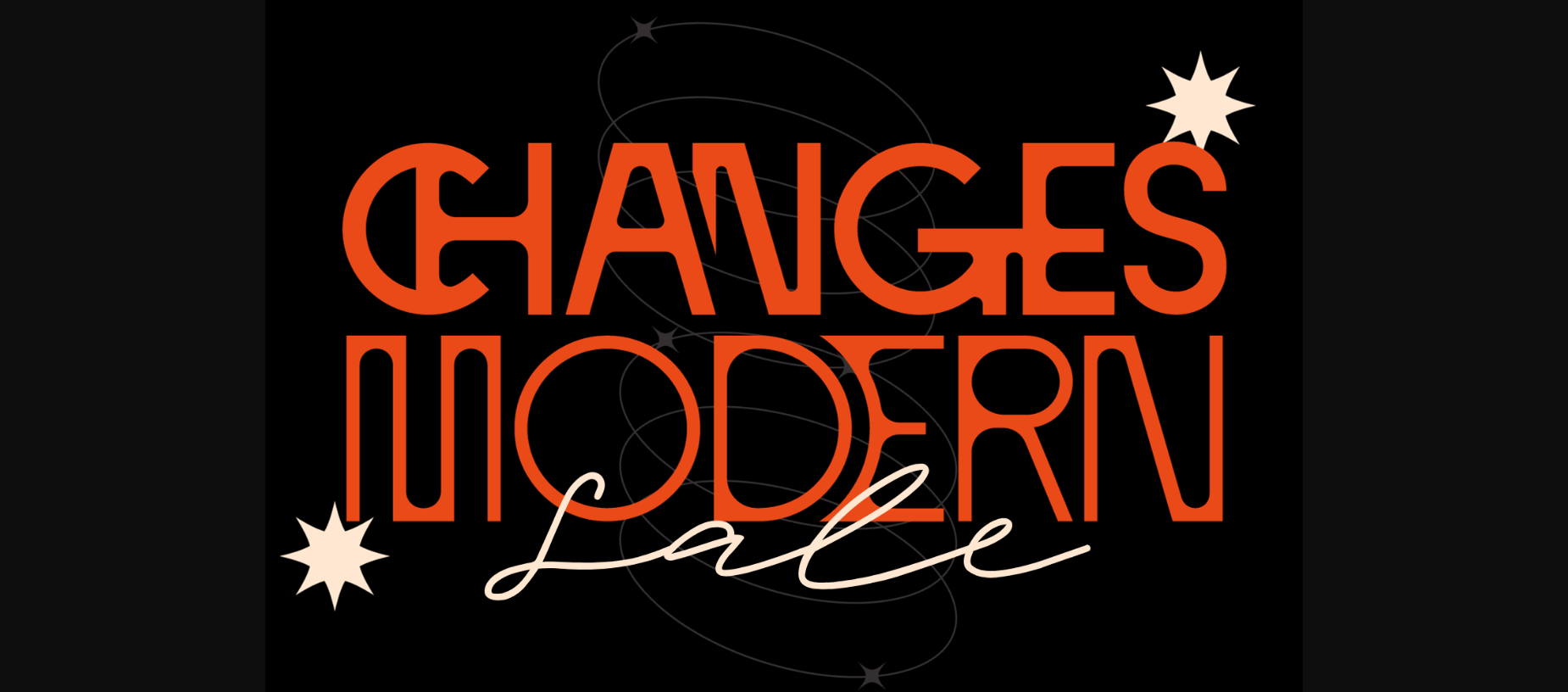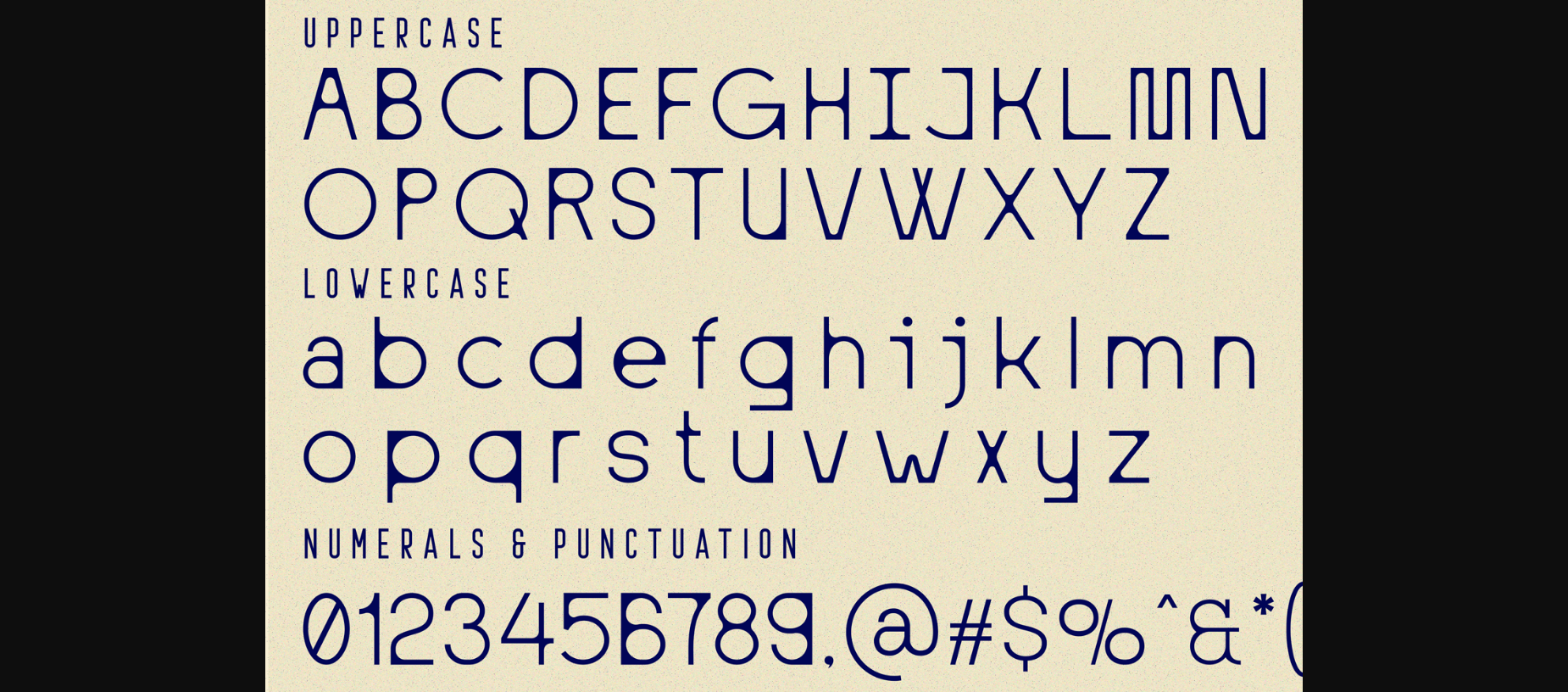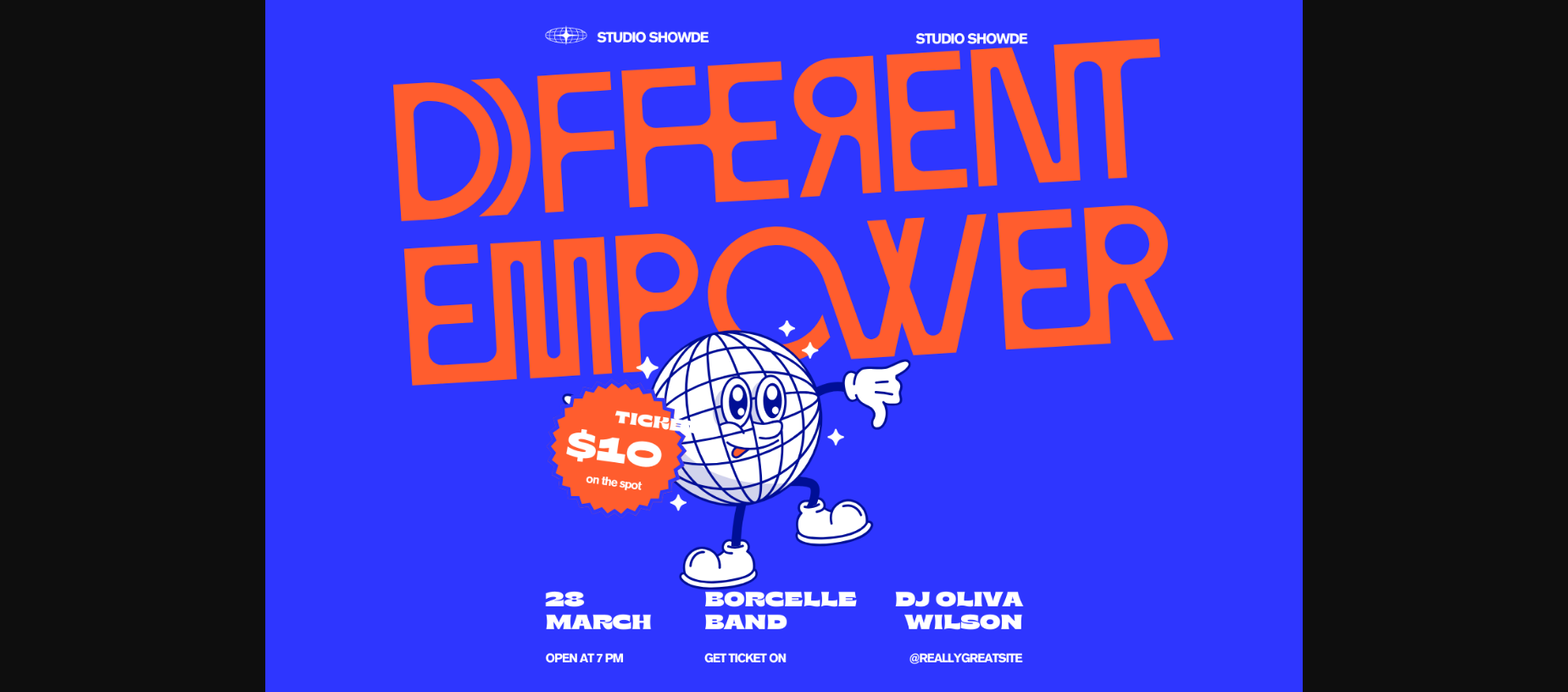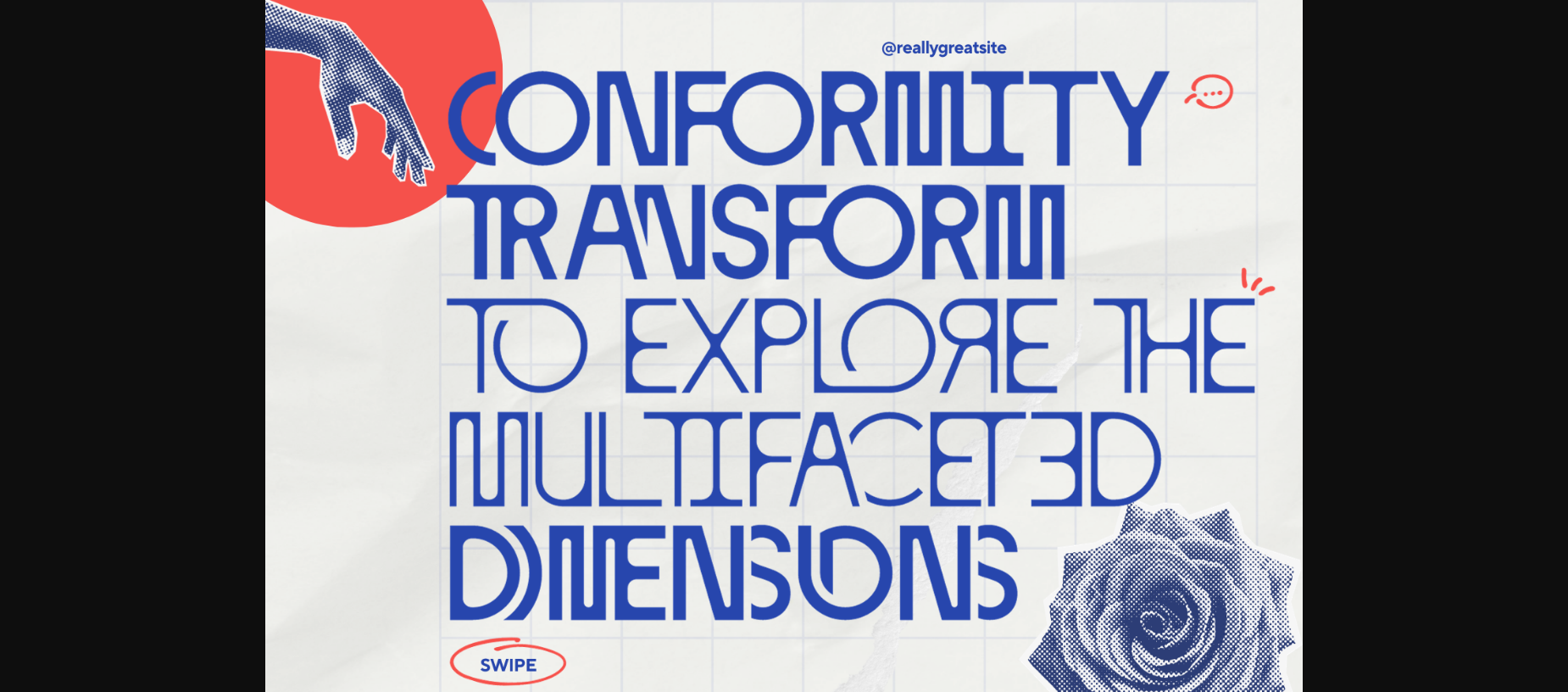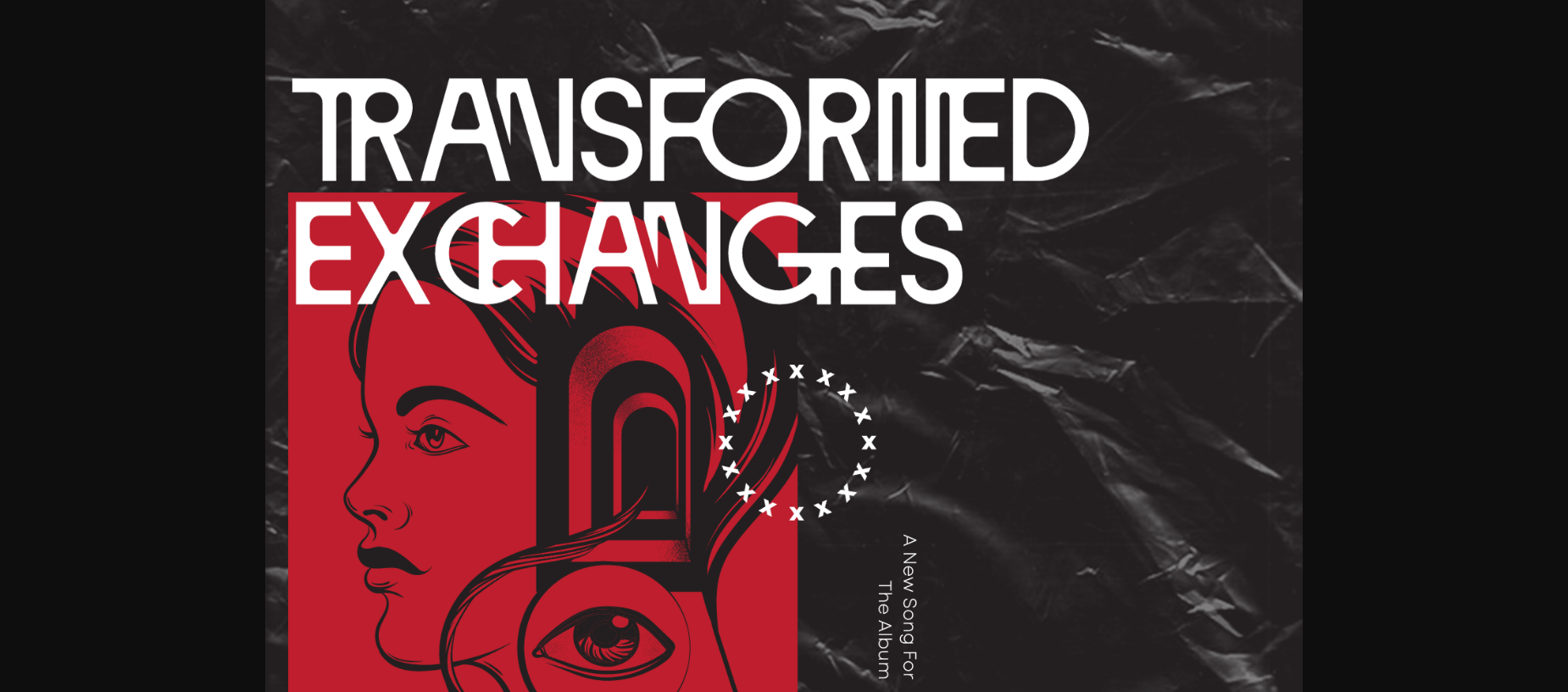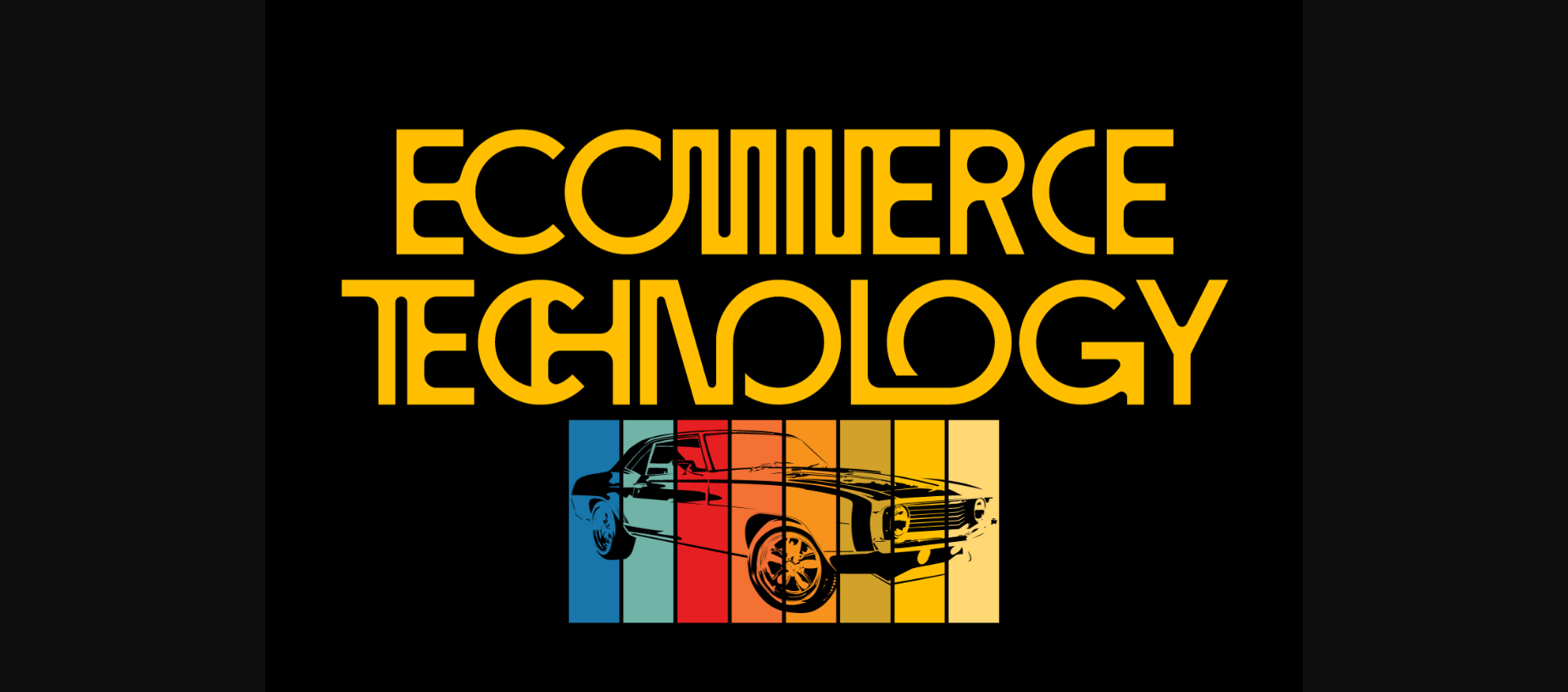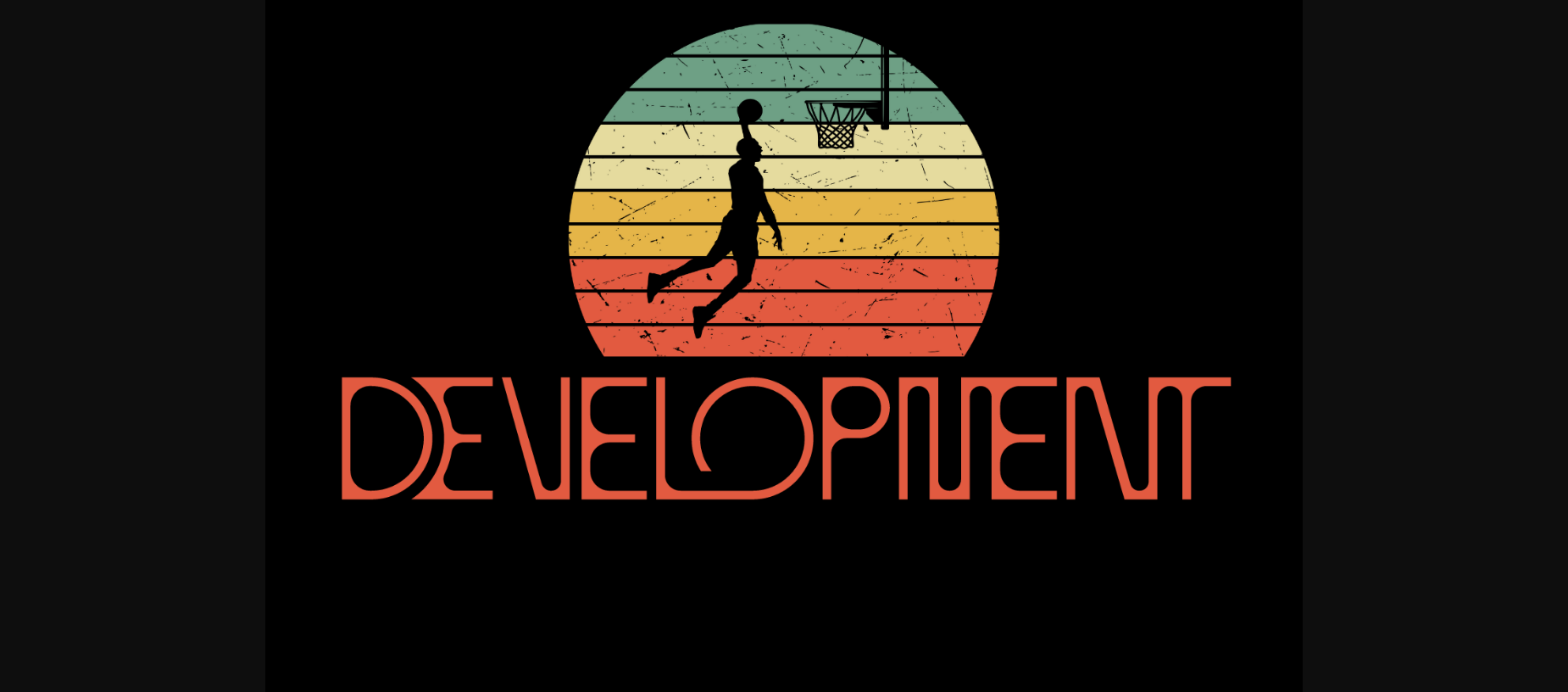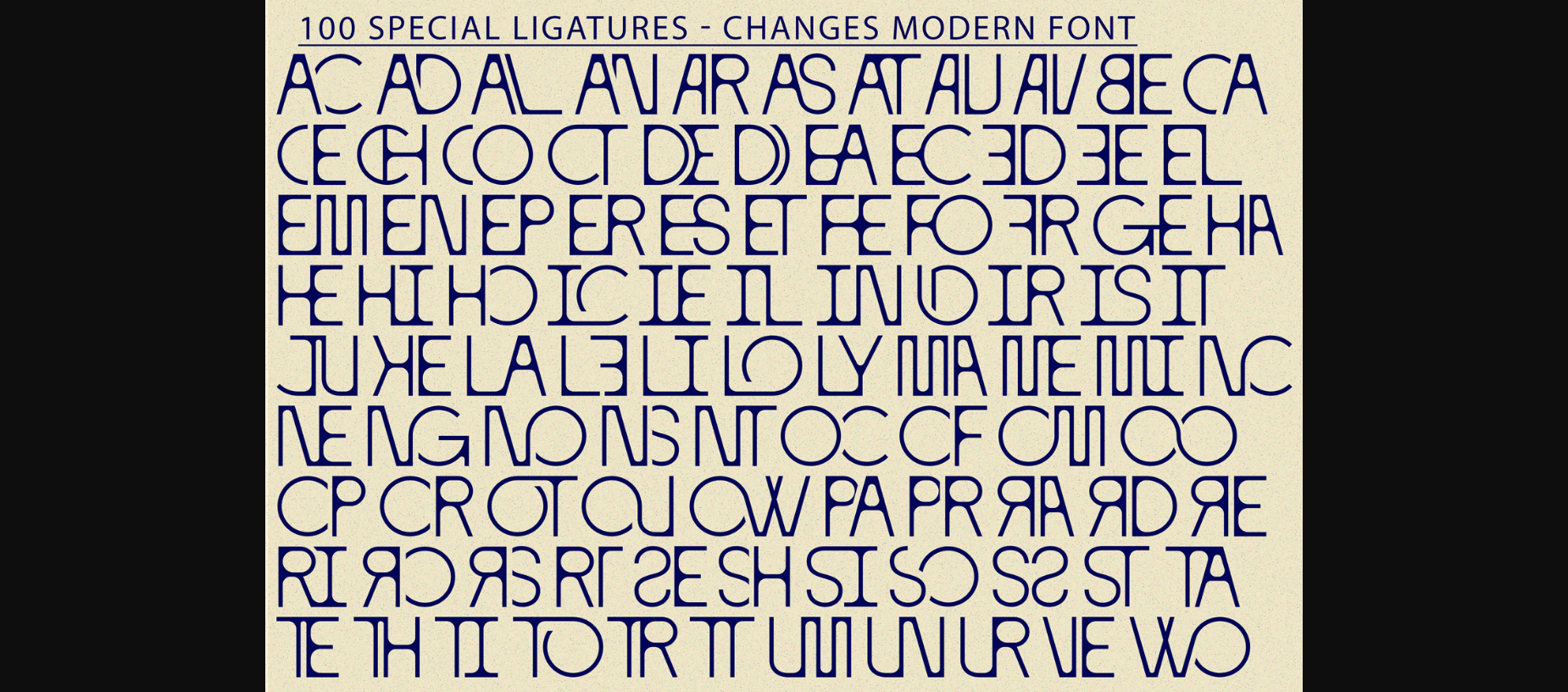
About Changes Modern Font
CHANGES MODERN FONT is a casual sans that is the perfect combination of strength & play. It’s a reverse contrast typeface with a modern and clean look. With use the sharpness of the eyes, and remain logical, so that balance is maintained in each form. So, it will get a clean, neat, and perfect shape. This typeface provides a timeless look for any design. Use it for branding, magazine design, logo design, headlines, posters, packaging, cards, or your wedding invitation.
CHANGES MODERN was built with OpenType features and includes 100 ligatures, alternates, numbers, and punctuation, and it also supports other languages.